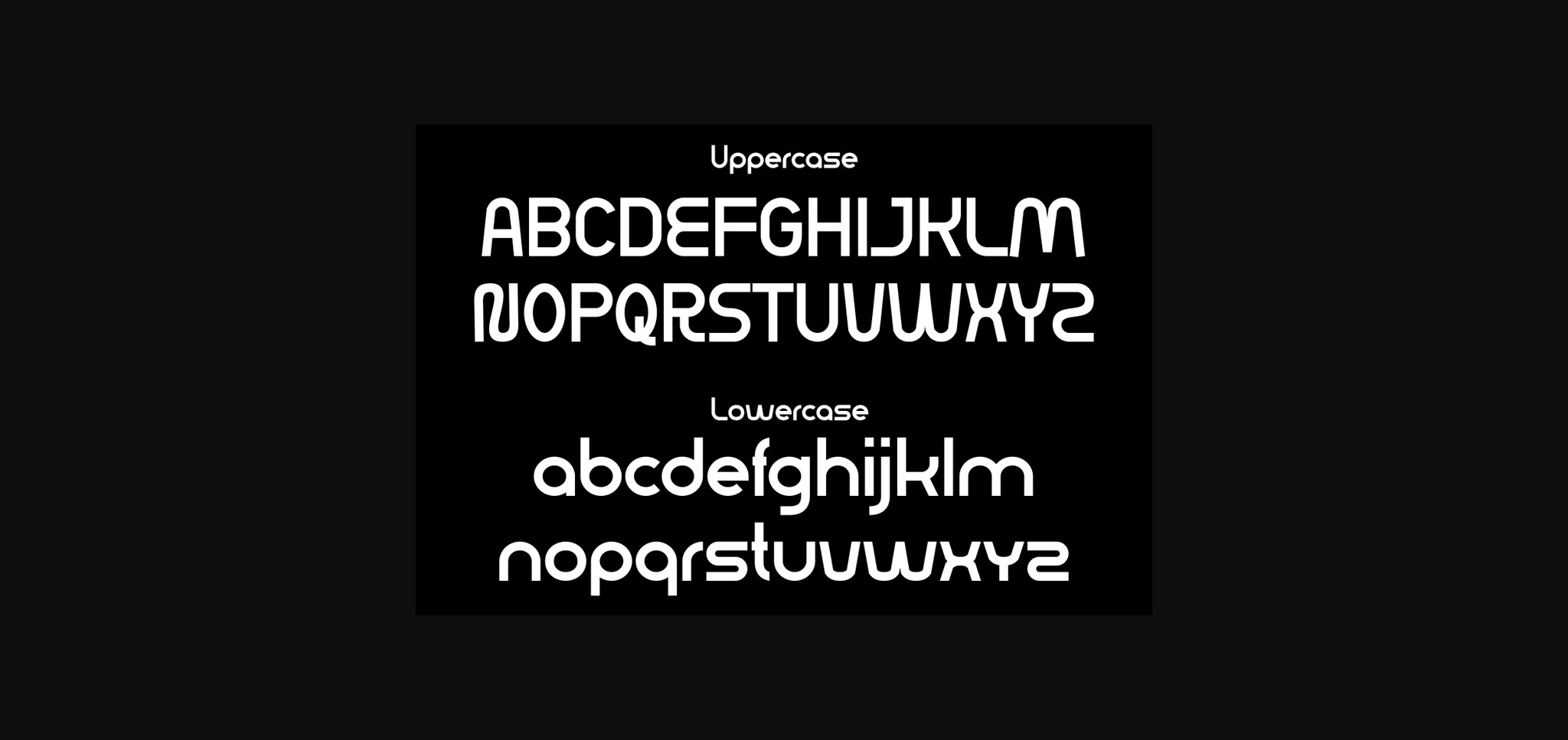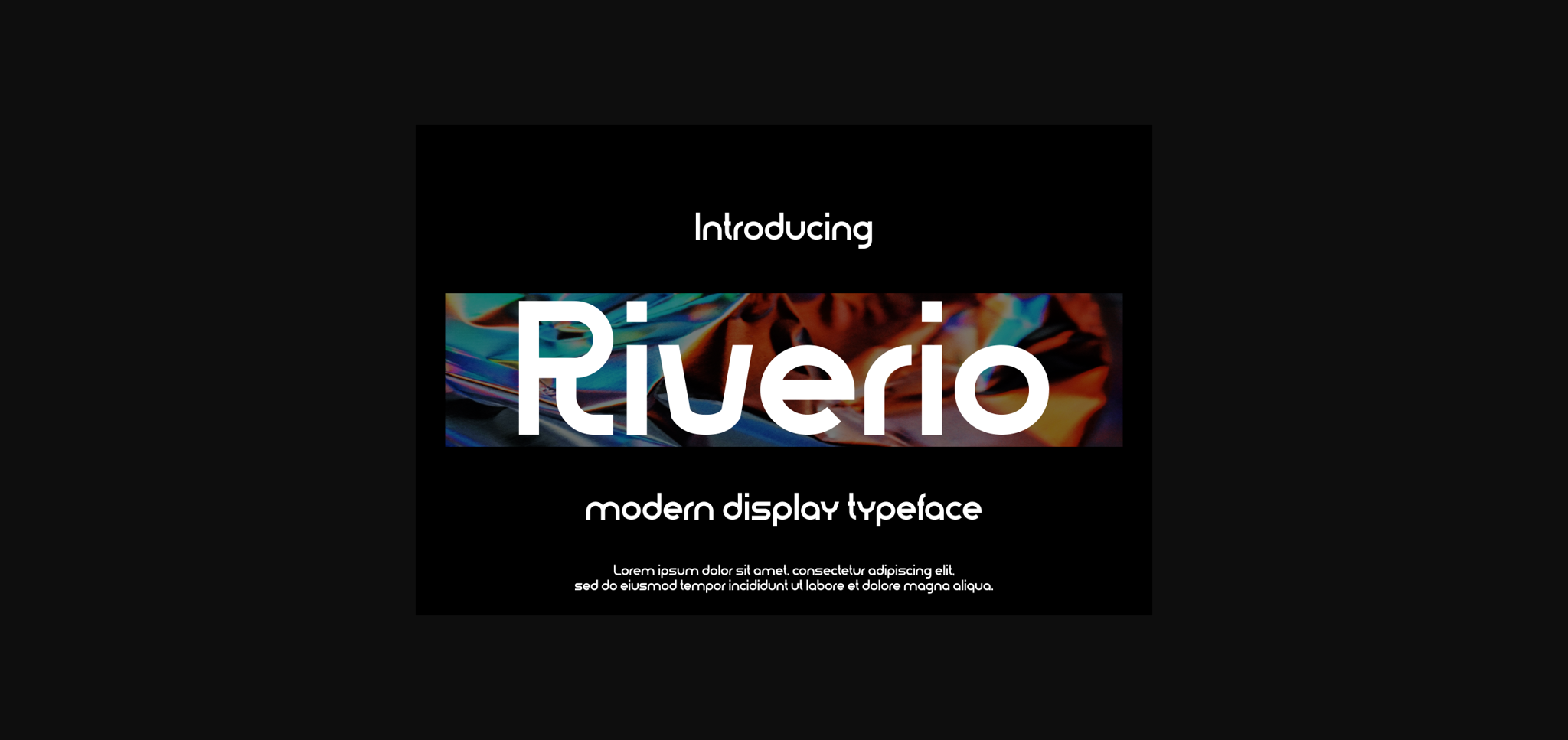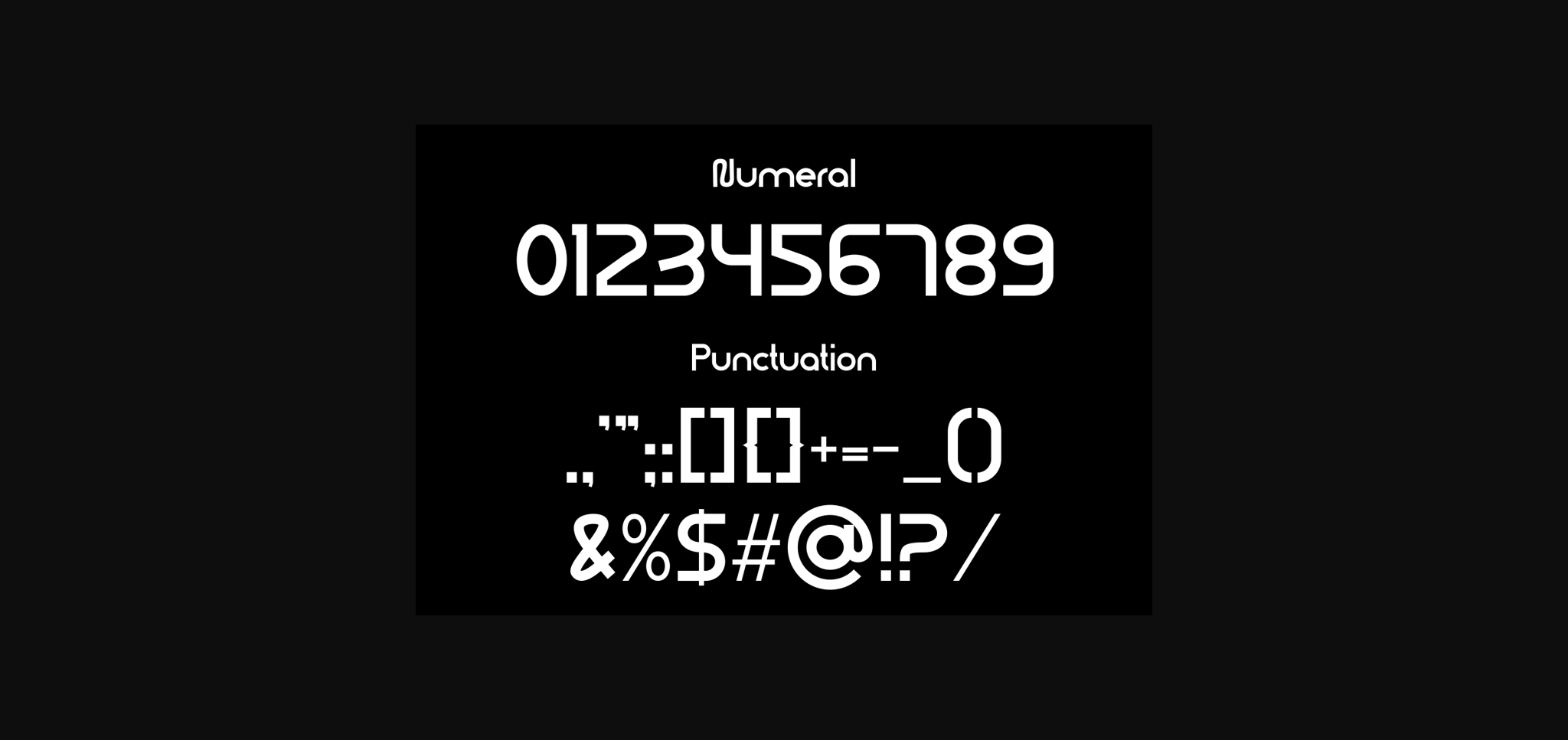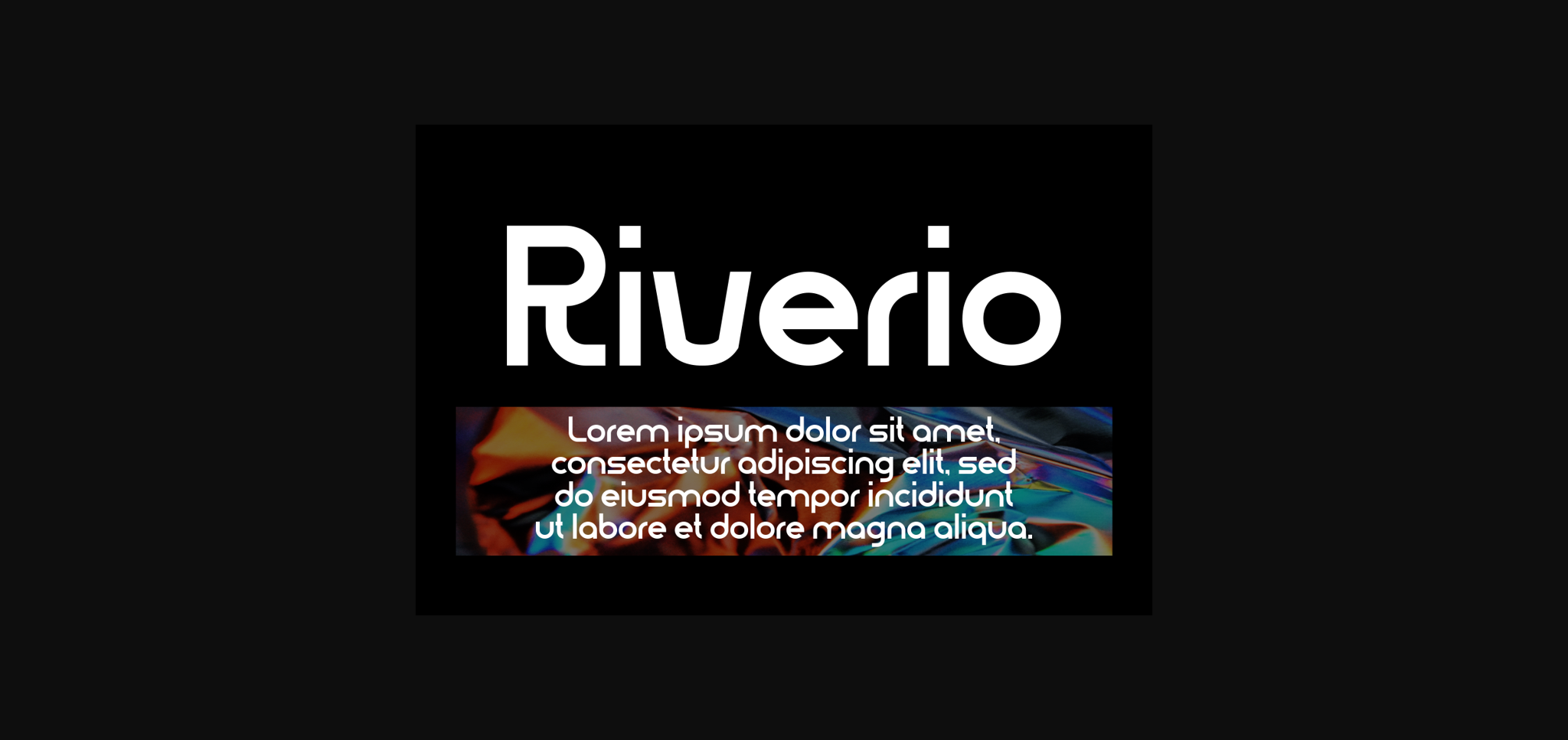
About Riverio Font
Riverio is a modern display authentic and unique font Perfect for both professional and branding needs of a product. This font is suitable for any branding project like quotes, logo, blog header, poster, banding, letter, invitation, stationery and more.